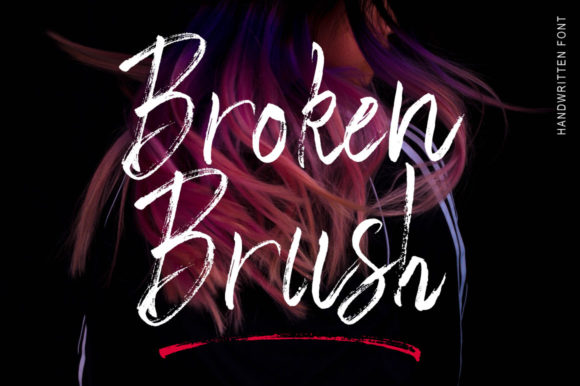
The Broken Brush Font: A Beautifully Imperfect Addition to Your Design Arsenal
I’ll never forget the time I was working on a wedding invitation project, and my client asked for a font that looked like it was written with a brush. I scoured the internet, tried a dozen different fonts, but none of them captured that effortlessly elegant, handmade feel. That was until I stumbled upon the Broken Brush font. 💕
It was love at first sight! The Broken Brush font has an authentic, organic feel that instantly elevates any design project. In this article, I’ll share my experience with this gorgeous font, its features, and how to make the most of it in your designs.
An Honest Review of Broken Brush Font
What I Love About Broken Brush Font ✨
- Authentic brushed handwritten feel that adds a personal touch to any design
- Perfect for creating wedding invitations, stationery art, social media posts, and greeting cards
- Elegant and sophisticated, yet playful and whimsical
- Easy to read and understand, even in smaller sizes
While I adore the Broken Brush font, there are a few things to keep in mind:
- Some letters may appear a bit uneven or imperfect, which can be a minor issue for certain designs 🤔
- Not ideal for very large or bold text, as it may lose its delicate charm
The Story Behind Broken Brush Font
The Broken Brush font was designed with the intention of capturing the imperfect, handmade feel of traditional brush calligraphy. The designer aimed to create a font that would evoke the emotions and personality of a handwritten piece, while still being legible and versatile. 💫
Q: What type of designs is Broken Brush font best suited for?
A: Broken Brush font is perfect for creating wedding invitations, stationery art, social media posts, and greeting cards.